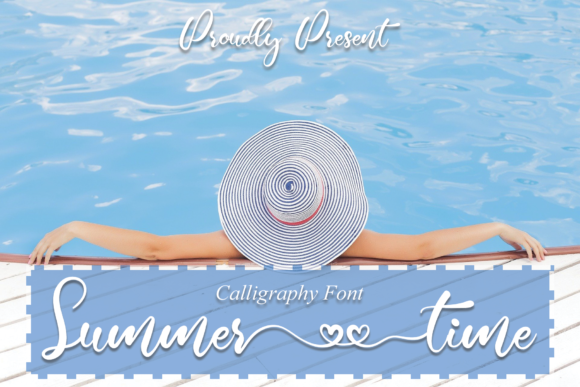
Summer Time is a unique and elegant handwritten font, with characters that dance along the baseline. It will add a luxury spark to any design project that you wish to create! Summer Time is PUA encoded which means you can access all of the glyphs and swashes with ease!